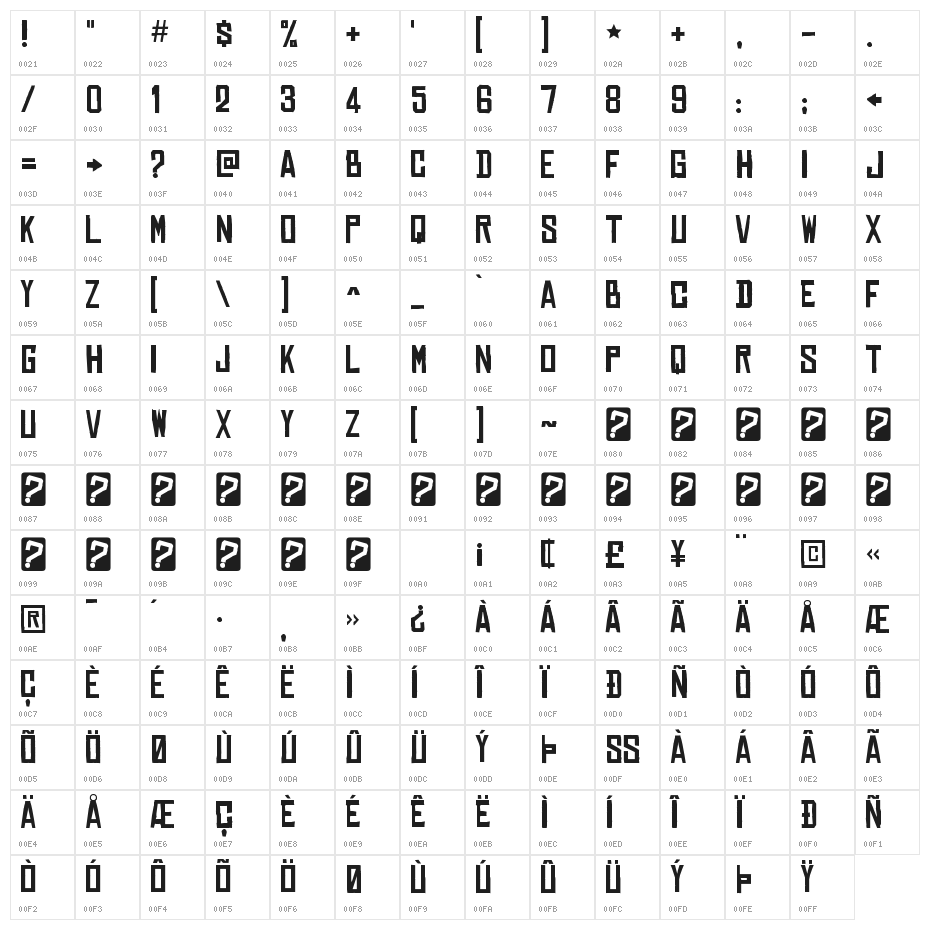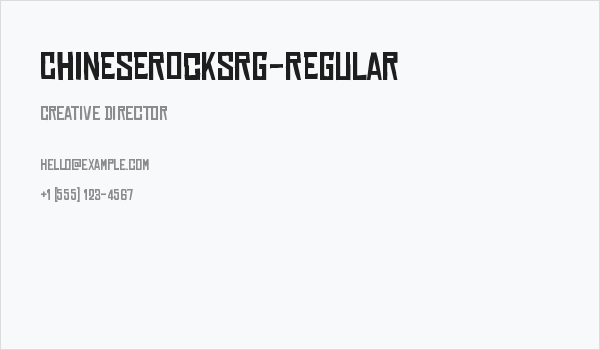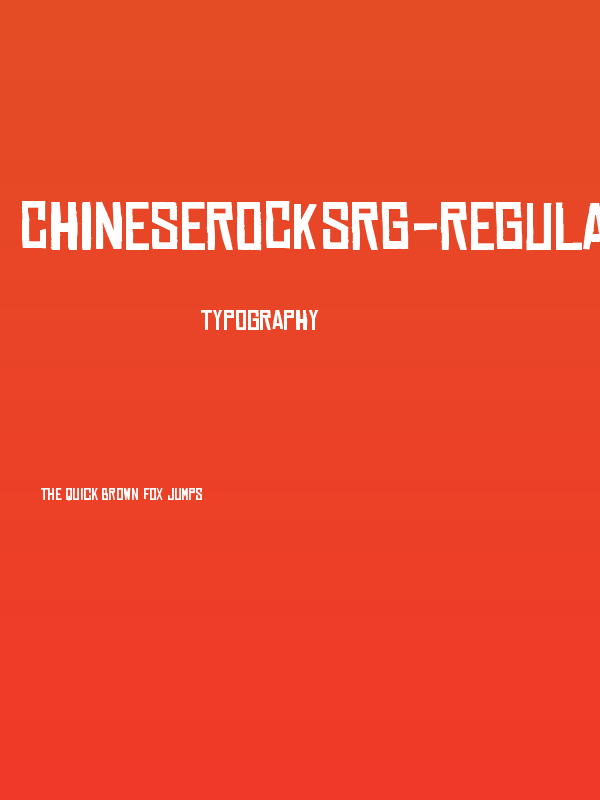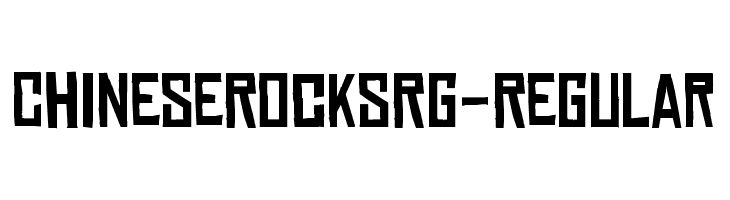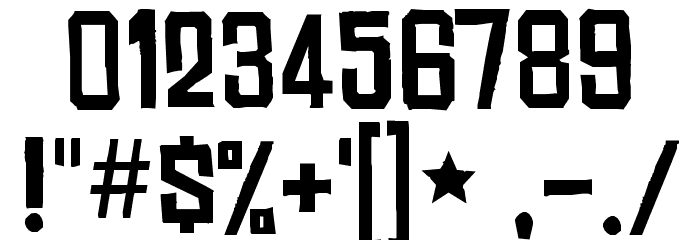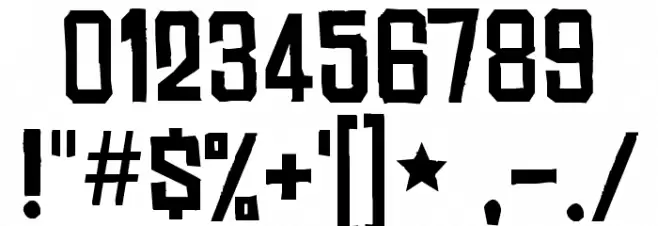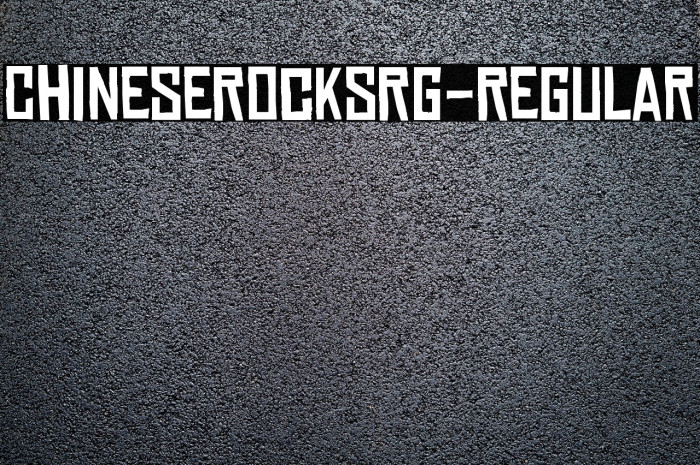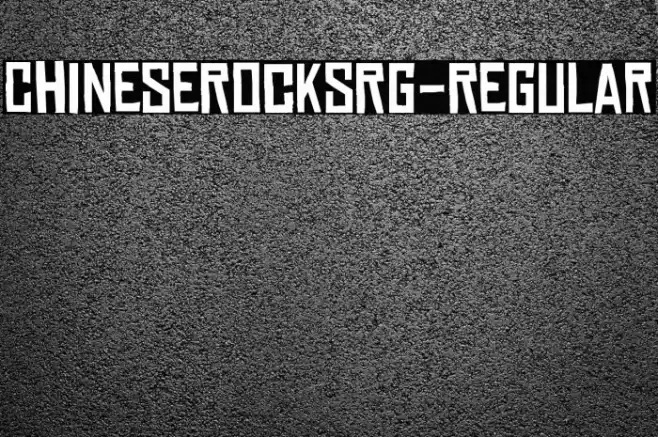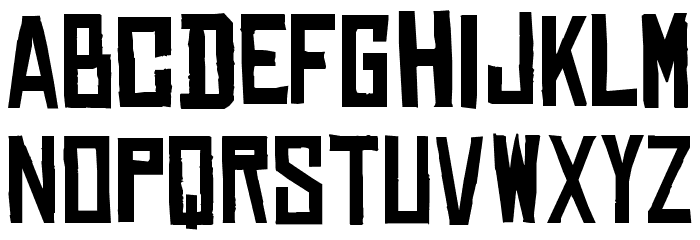
ChineseRocksRg-Regular Font
| Projetos propostos | Perfect for album covers, posters, branding for extreme sports, or any project needing a strong, impactful look. |